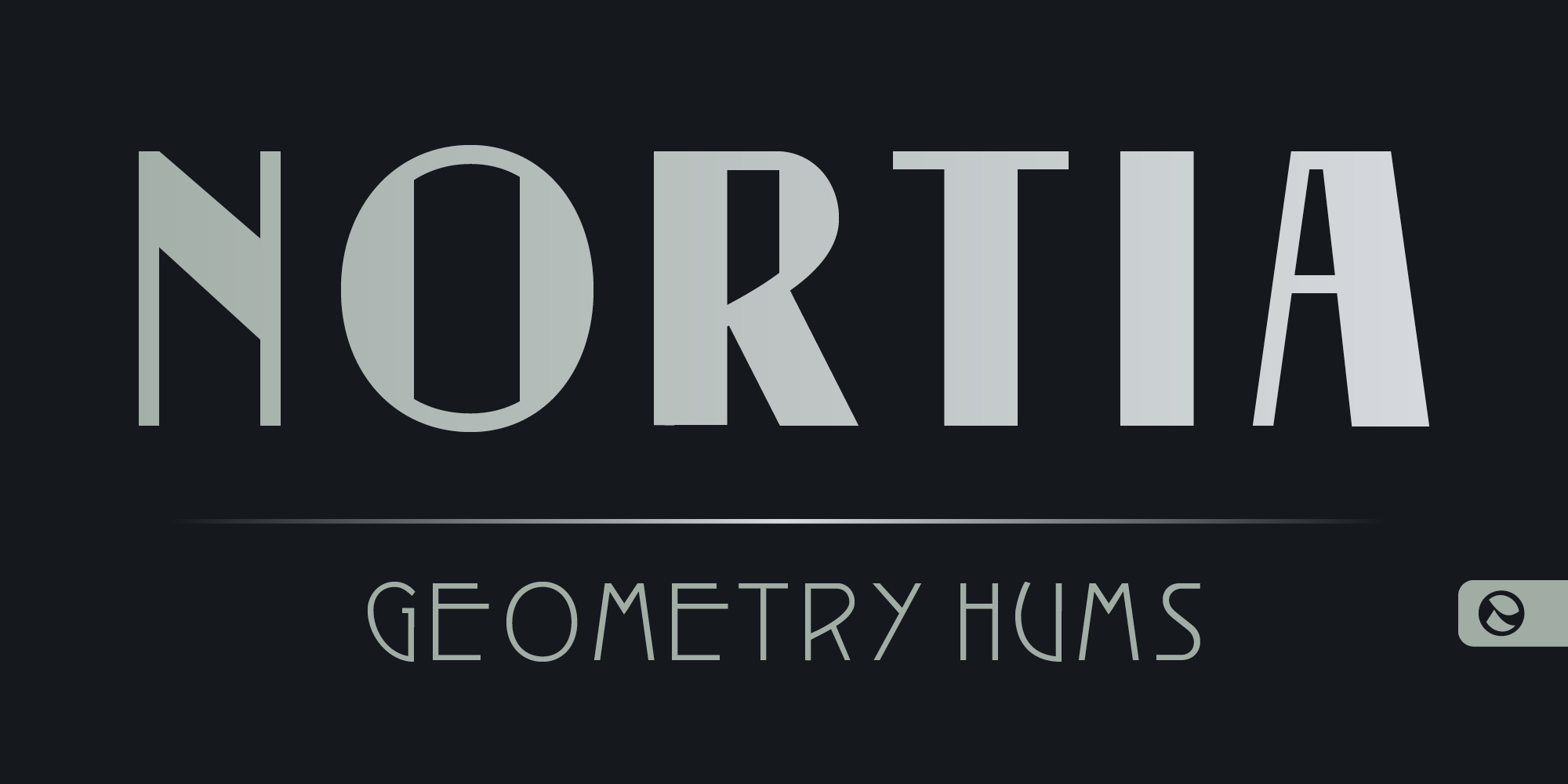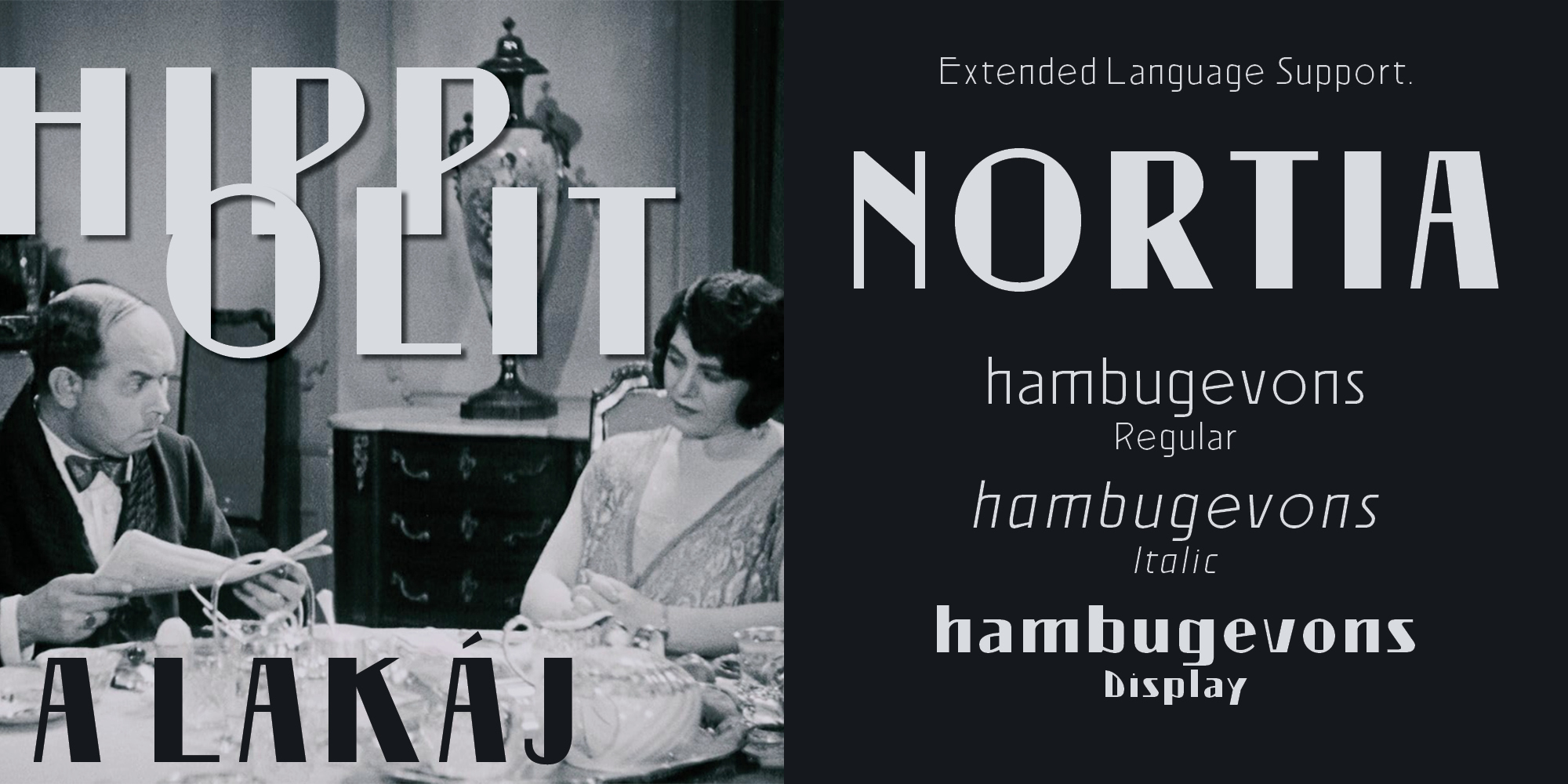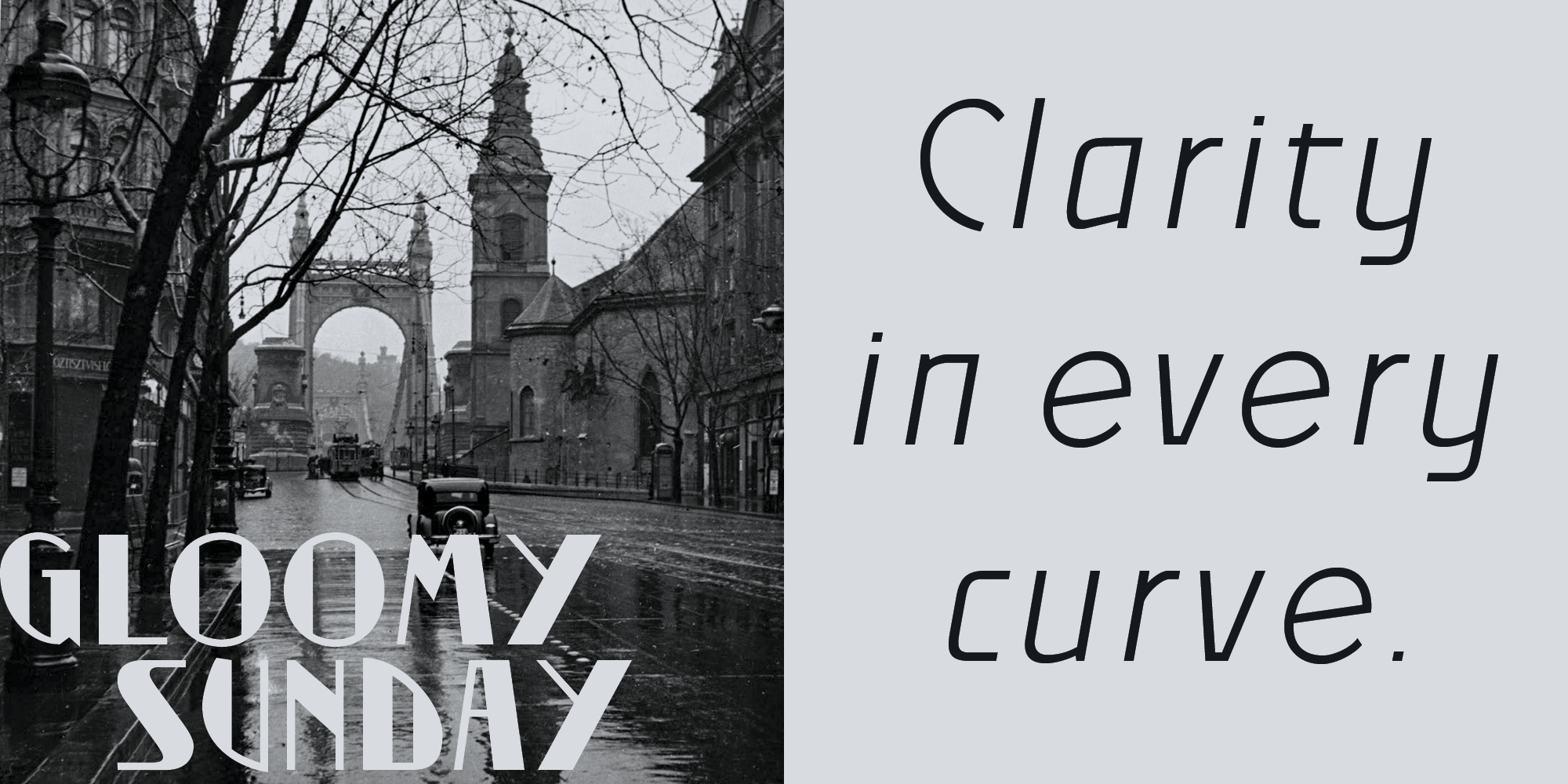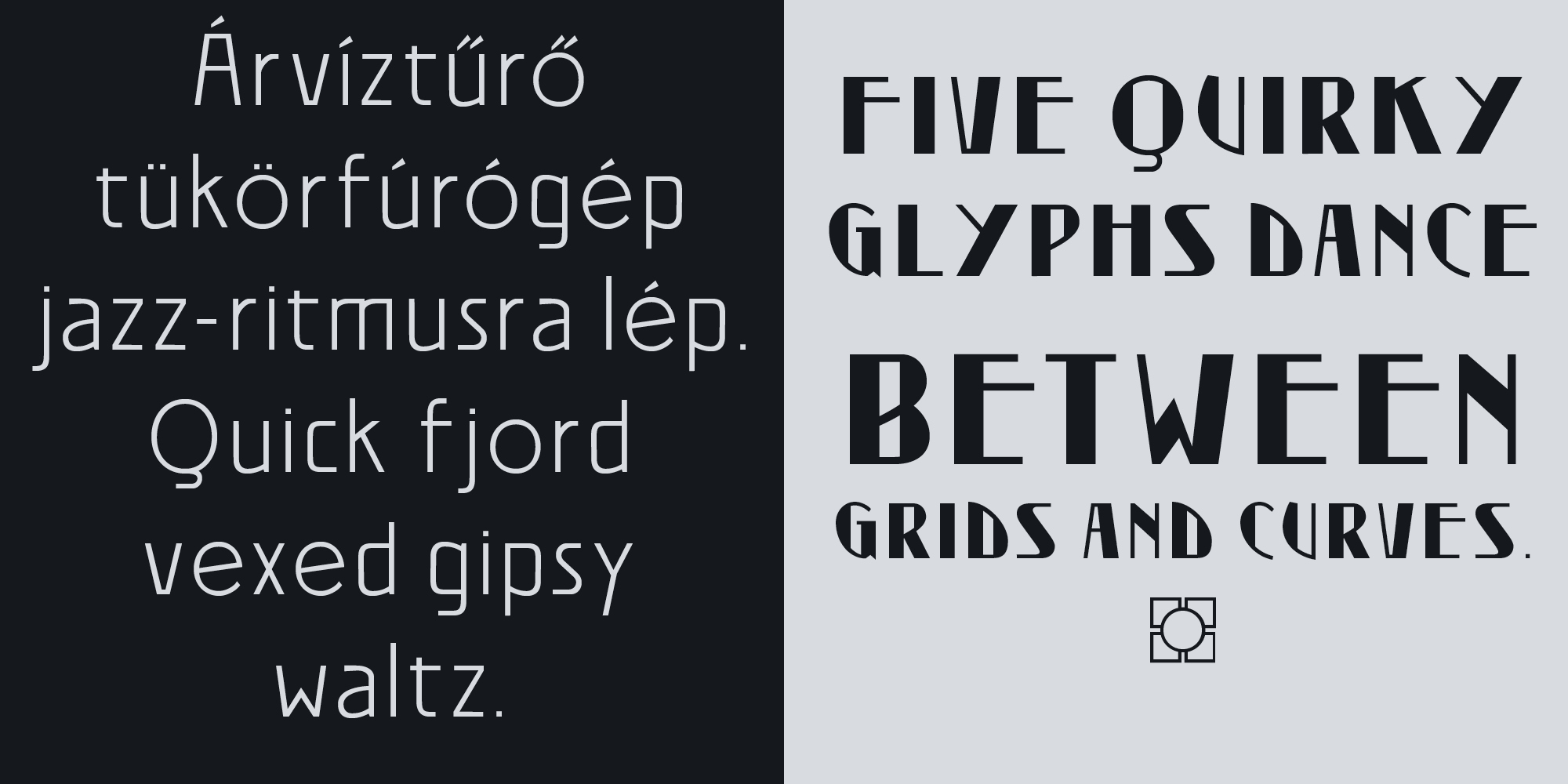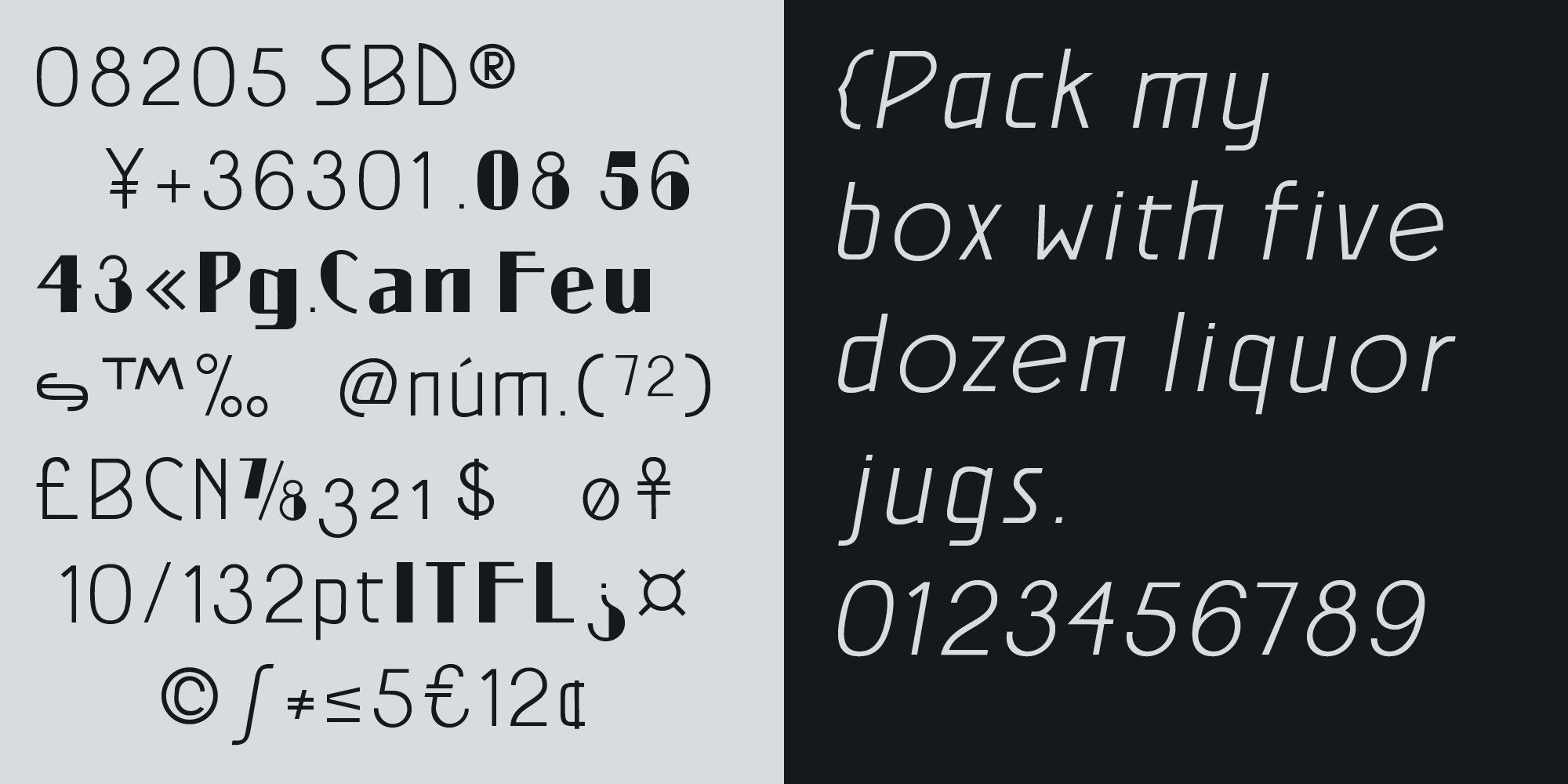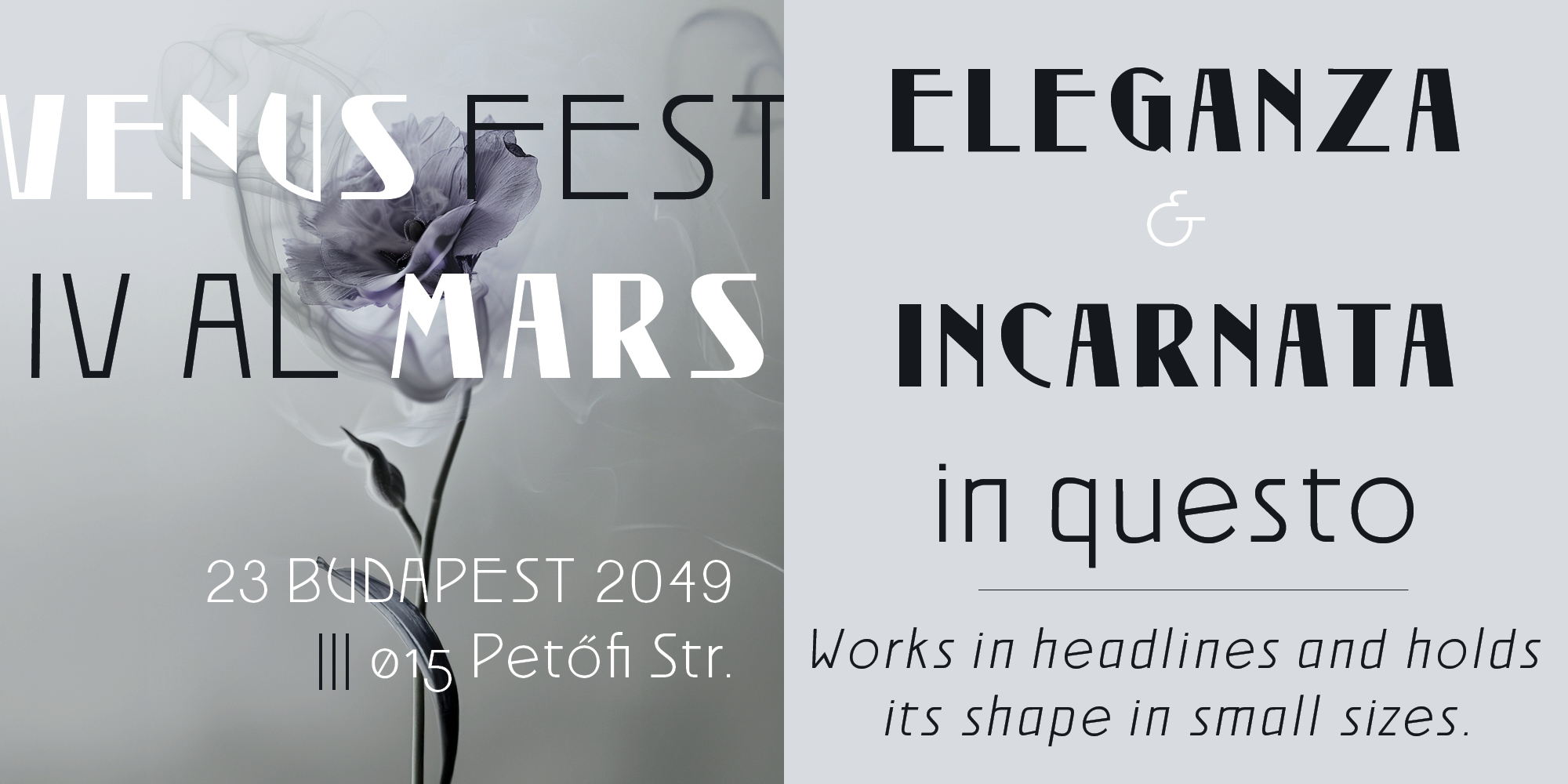
NORTIA is a geometric sans-serif family in 3 styles — Regular, Italic, and Display — designed for editorial work, cultural branding, fashion typography, and any project that needs urban elegance with historical depth.
The starting point was a letterform discovered in a turn-of-the-century Budapest type specimen book. Among its pages — filled with the typographic culture of fin-de-siècle Pest — a geometric sans appeared under the name Isis. Egyptology was fashionable. The name reflected the moment. The letterforms reflected something else entirely: clean geometry, confident proportions, the quiet modernism of a city that was building itself into a European capital.
Nortia redraws that geometry for now. Not a revival — a conversation. The Display style carries the monumental weight of 1930s Budapest cinema posters and Art Deco façades. The Regular and Italic bring the same DNA into contemporary editorial and branding work.
The name comes from Nortia, the Etruscan goddess of fate and fortune. A fitting name for a typeface rooted in a city that gave the world Rezső Seress, Mihály Curtiz, and Sándor Korda before any of them became international. Fate, it turns out, has good taste in letterforms.
Geometry doesn’t age. It just finds new addresses.
Nortia